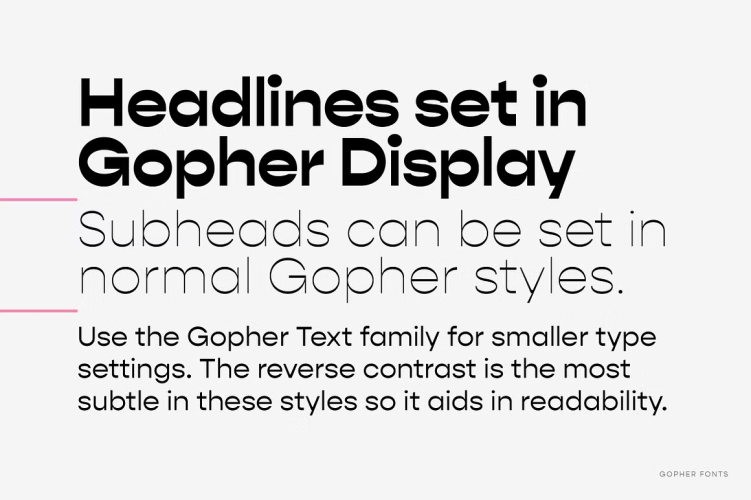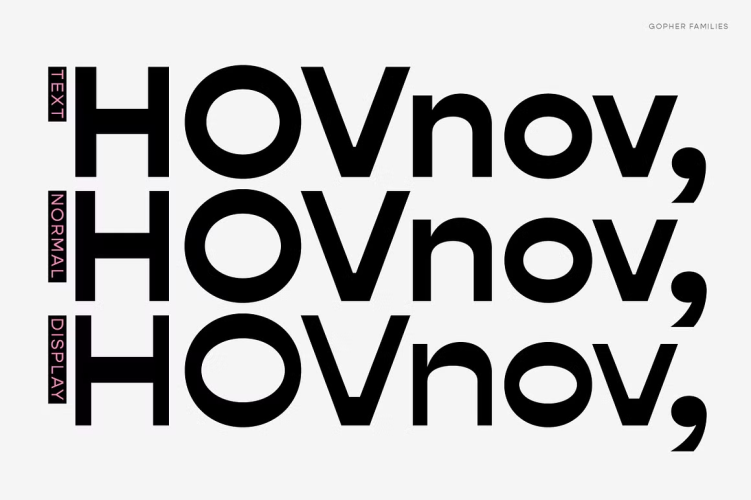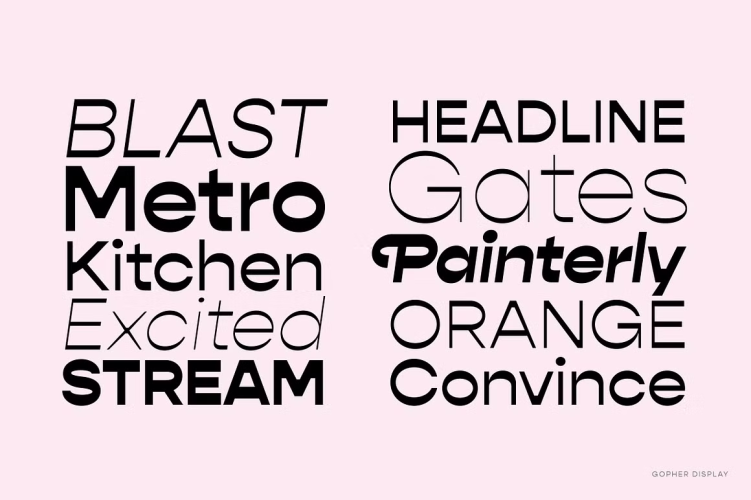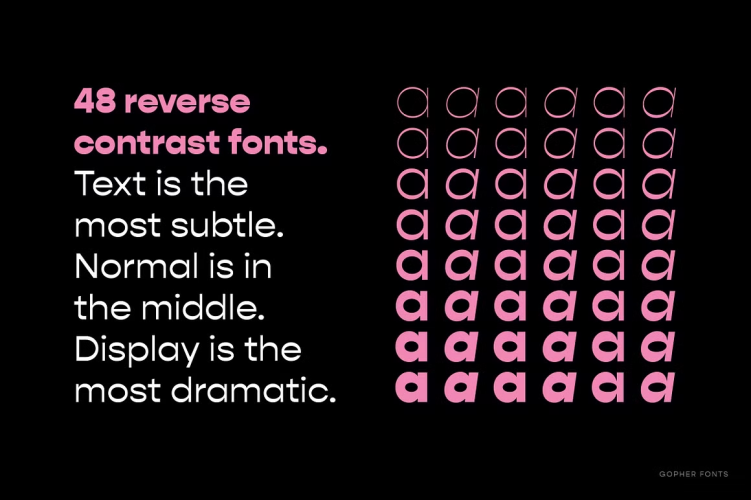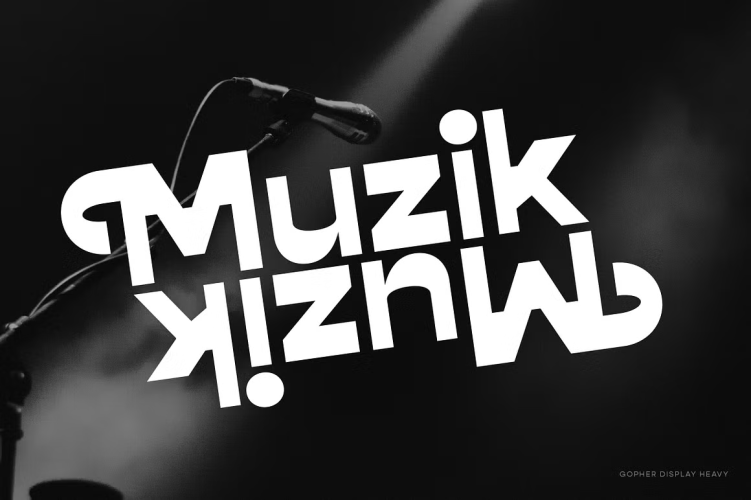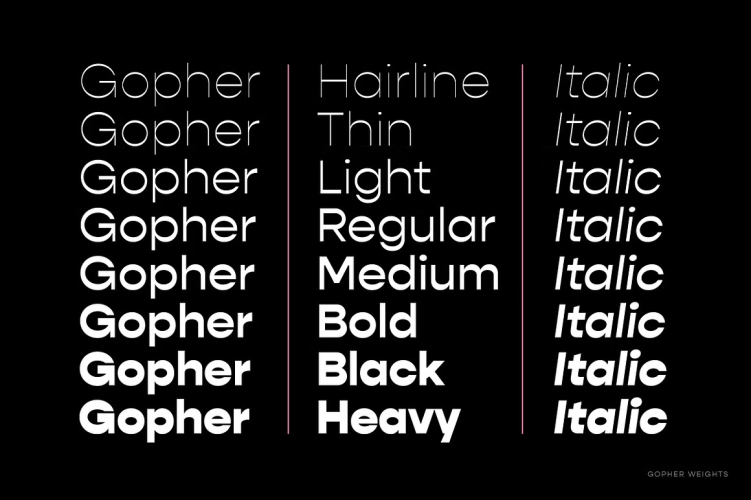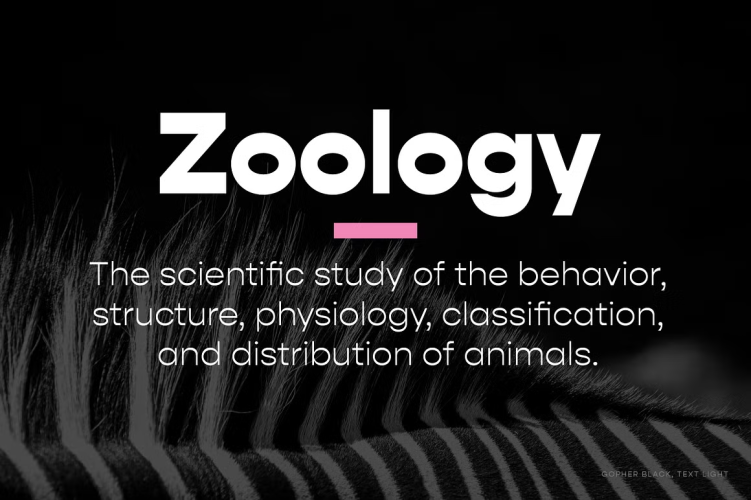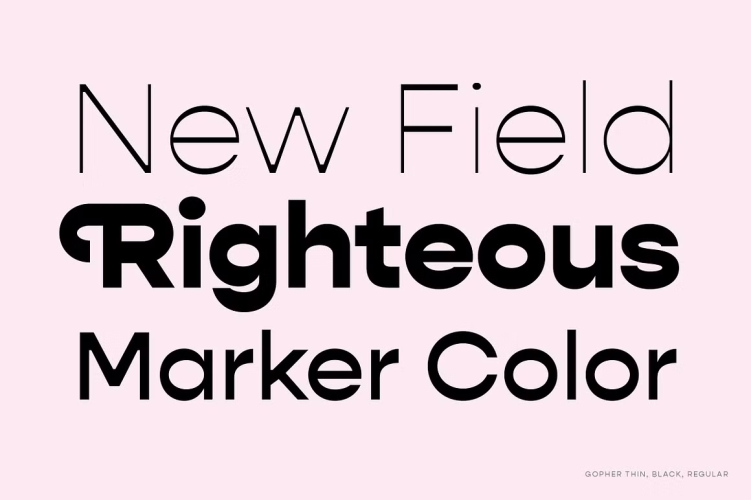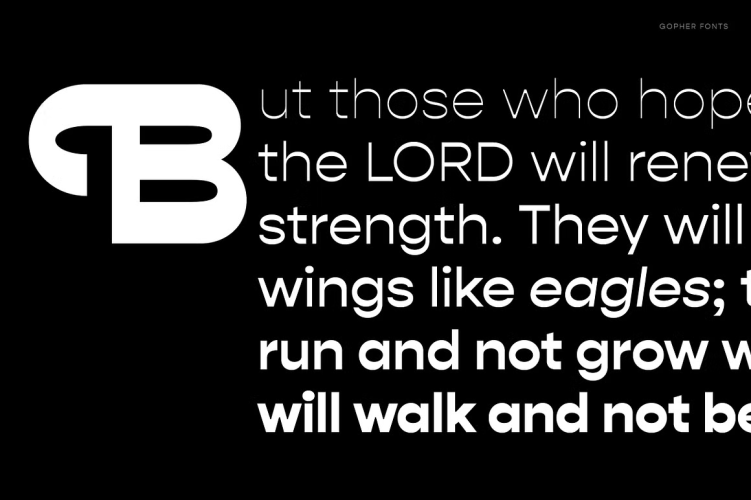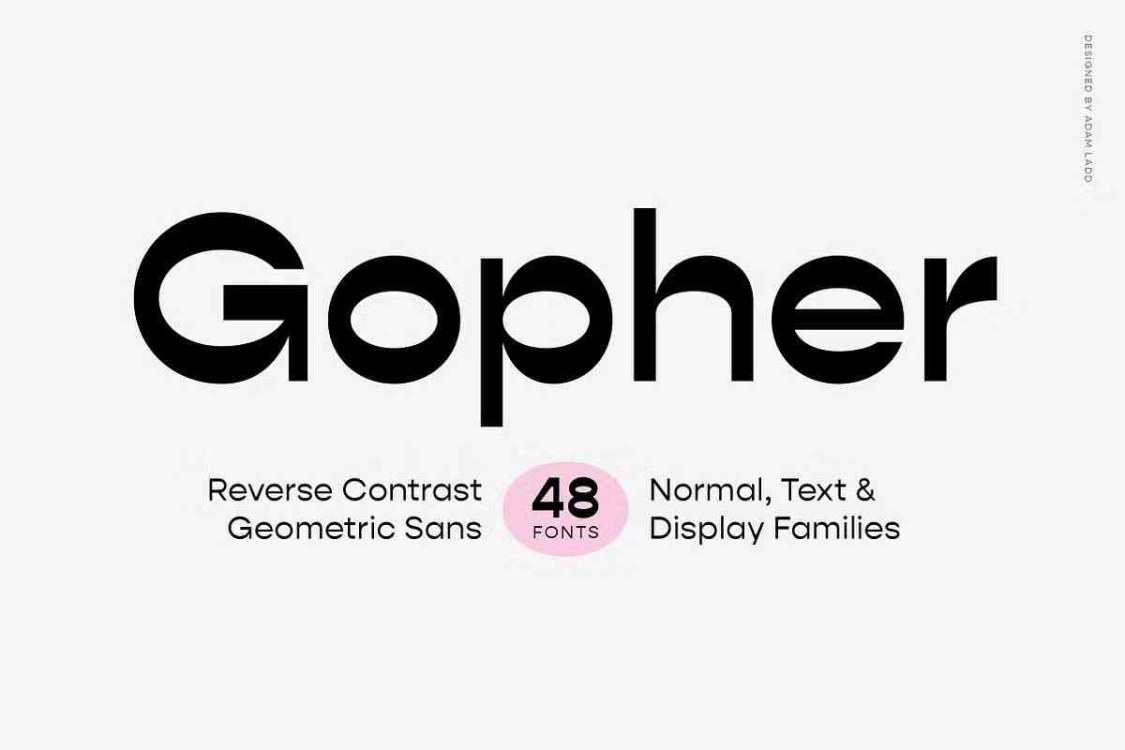
Gopher Font
Gopher is a reverse contrast, geometric sans serif font with Normal Text and Display families. The 48 included fonts in the complete family range from hairline to heavy,…
Gopher is a reverse contrast, geometric sans serif font with Normal Text and Display families. The 48 included fonts in the complete family range from hairline to heavy, with italics. A variation in the amount of contrast is what distinguishes the three separate families while allowing them to still work in harmony together.
In typography, it is common to have vertical contrast, where the sides and stems of letters are thicker, and the horizontal tops and bottoms are thinner. However, Gopher, a geometric sans serif typeface, provides a unique look by reversing this contrast. In Gopher, the sides are thinner, and the tops and bottoms are thicker. This approach was challenging to design, especially for letters with diagonal strokes, like “v” and “k”, but it yielded exciting results.
Gopher includes many OpenType features to enhance your typography:
With over 600 glyphs, this font has extensive Latin language support (100+ Latin languages) for Western, Central, and South Eastern European. Gopher will find its home in a variety of settings for branding, advertising, posters, magazines, packaging, and more.
With multiple weights, Gopher Font can carry a whole identity — logo, headings, body copy and captions — consistently across print and web.
Families let you set hierarchy with weight instead of switching typefaces, which keeps interfaces fast and coherent.
Brochures, catalogues and business cards benefit from a family that covers display and text sizes.